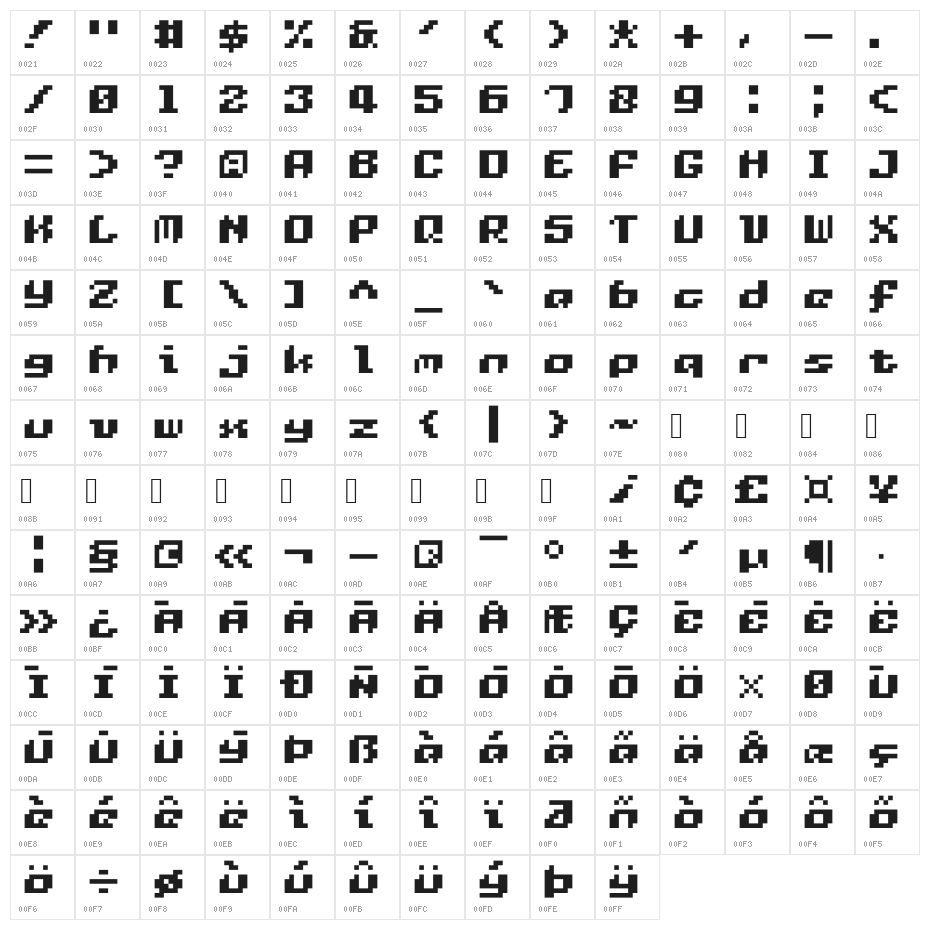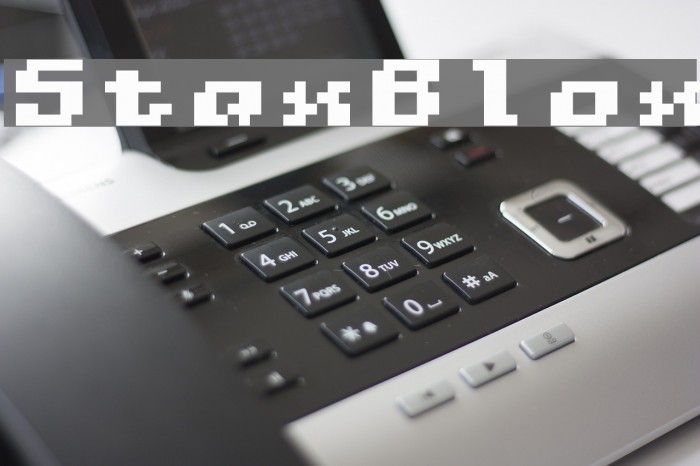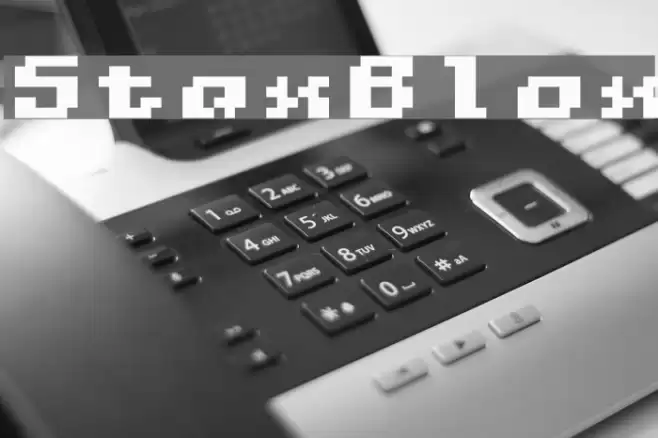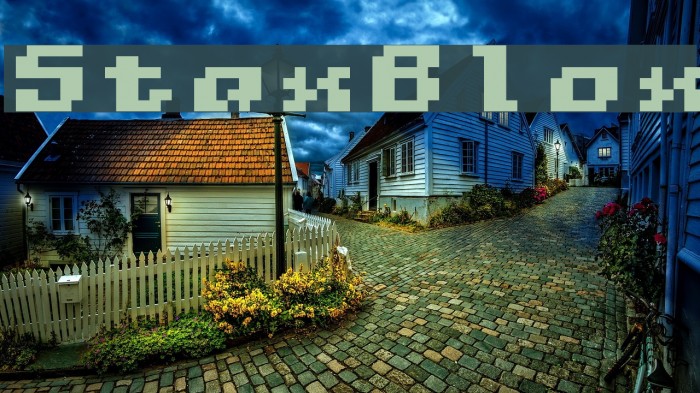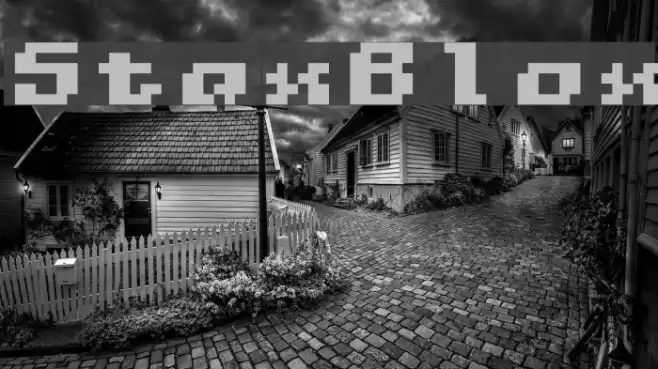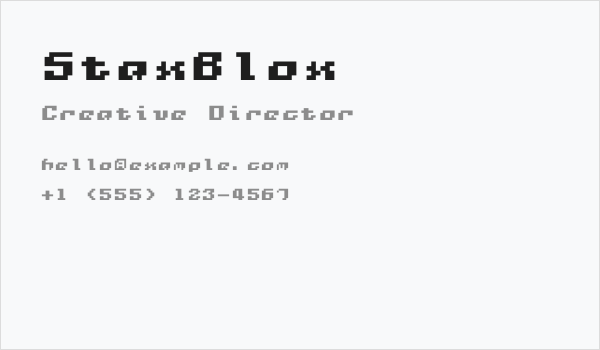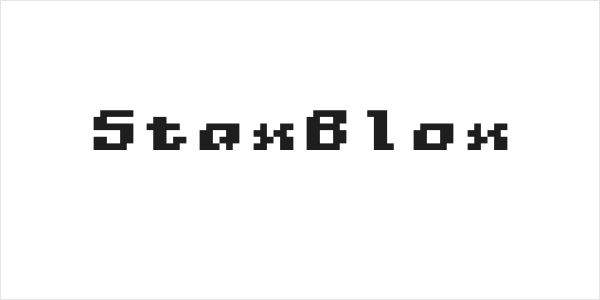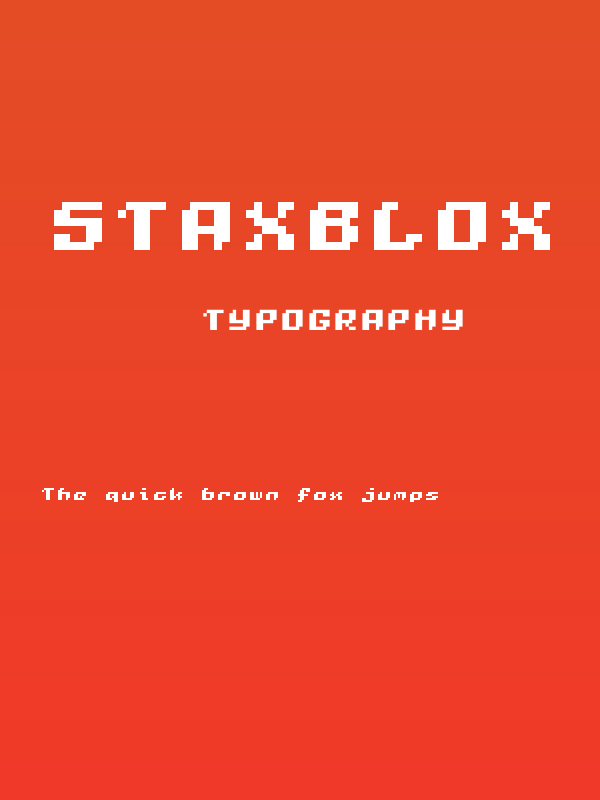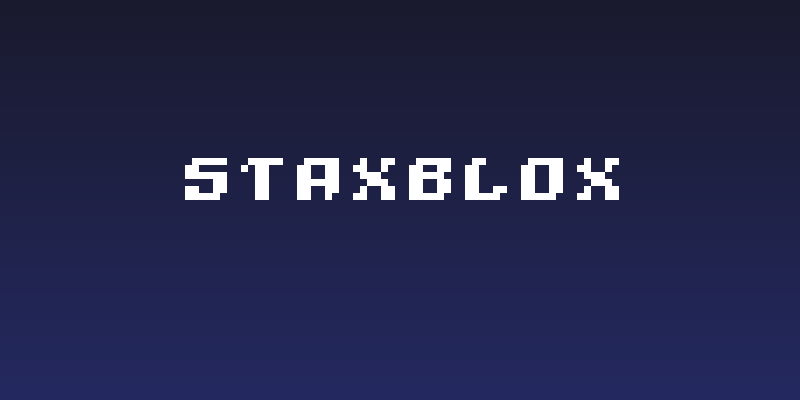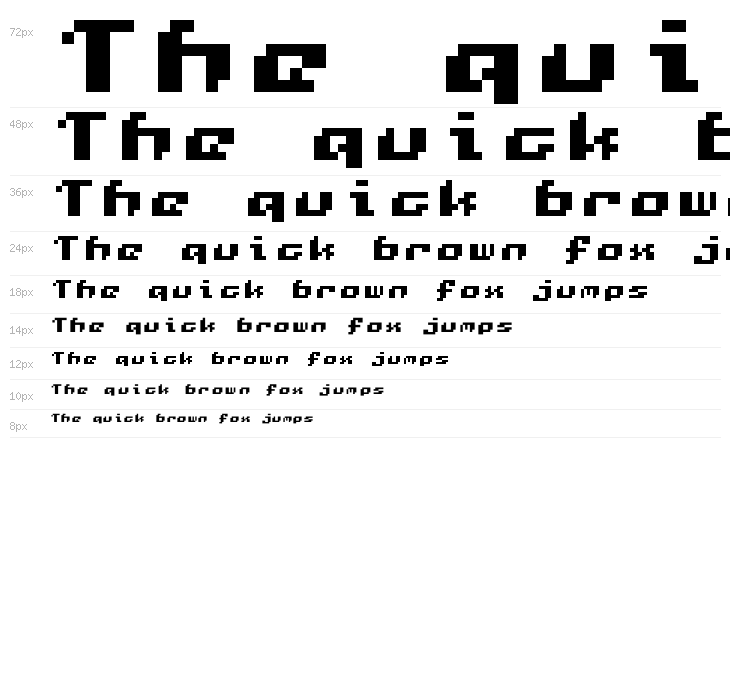
StaxBlox Font
StaxBlox Description
This font features a bold, pixelated design reminiscent of classic video game aesthetics. Each character is constructed with a blocky, grid-like structure, giving it a distinctly digital and retro feel. The uppercase and lowercase letters maintain a consistent height, contributing to a uniform appearance. Numbers and special characters follow the same pixelated style, ensuring cohesion across all glyphs. The font's simplicity and geometric shapes make it highly legible, even at smaller sizes. Its nostalgic appeal is perfect for projects that aim to evoke a sense of vintage computing or gaming culture.
| Use Case | Headlines, Logos, Digital Art |
| Proposed Projects | Ideal for video game design, retro-themed posters, digital art, and tech-related branding. |